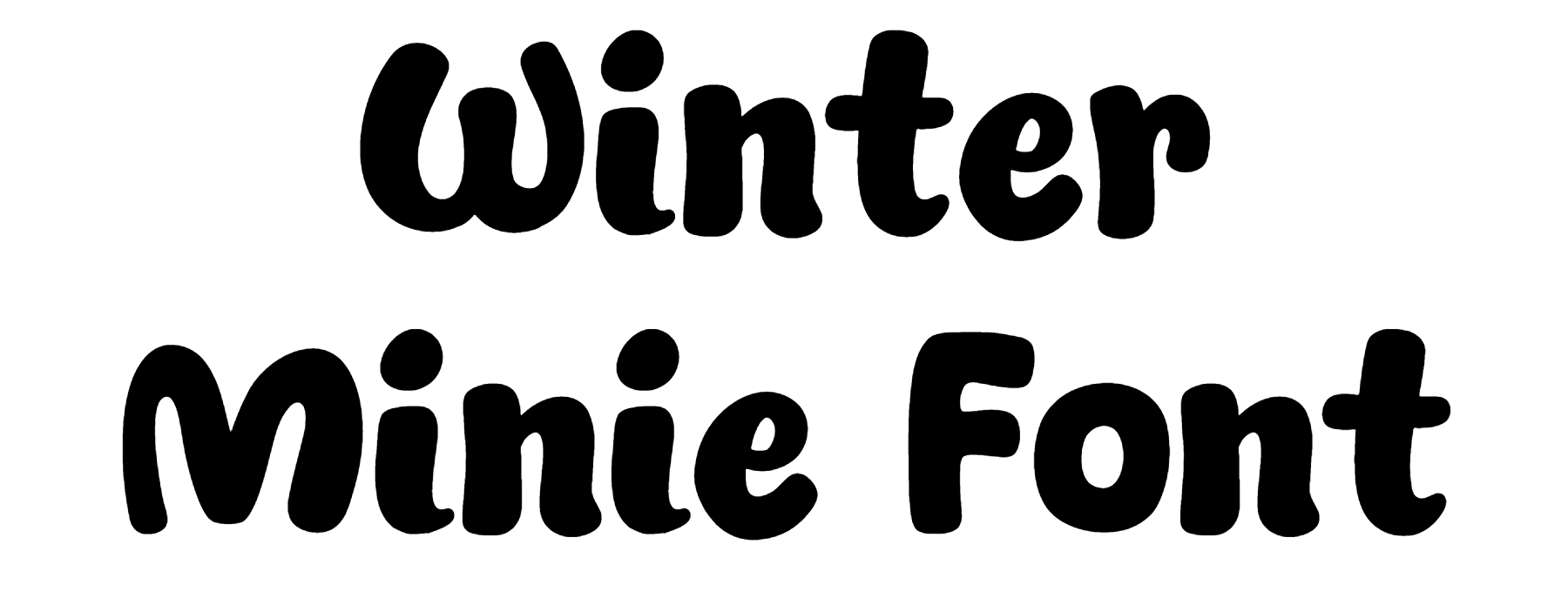
Winter Minie
Winter Minie is a cartoon font made by Khurasan (2024). Its bouncy, rounded letters feel playful, like lettering from a cartoon or a comic book. It's a free download, and you can try it with your own text in the preview above first.
What You Can Type With Winter Minie
Winter Minie covers the full alphabet in upper and lowercase, plus all ten numbers, so you can set names, dates and prices without switching fonts. Everyday marks like &, !, ? and @ are there too. There are no accented letters like é or ñ, so it's best kept to English text.
Where Winter Minie Works Best
Winter Minie is a natural fit for kids' books, birthday invites and fun YouTube thumbnails. Cartoon fonts are great for short, fun lines. If you place it over a busy photo, add a thick outline or a drop shadow so it stays readable.
Who designed Winter Minie font?
Does Winter Minie support accented letters?
No. Winter Minie has no accented letters such as é, ñ or ü, so it's best for English text.